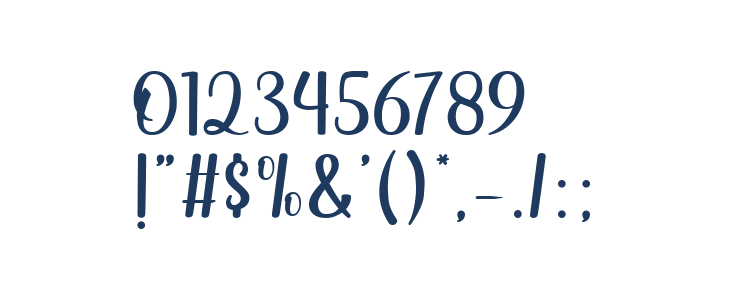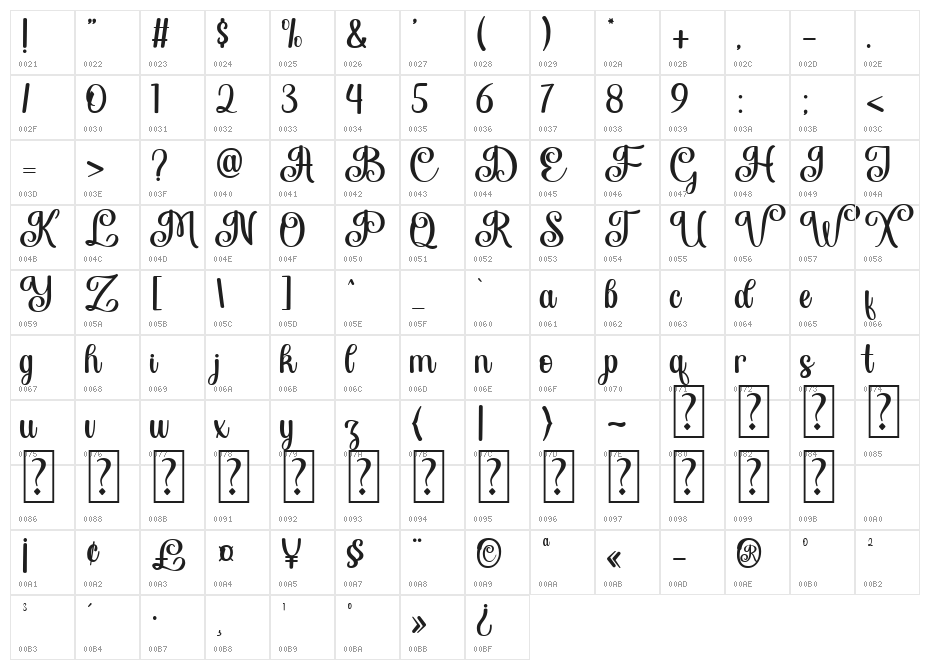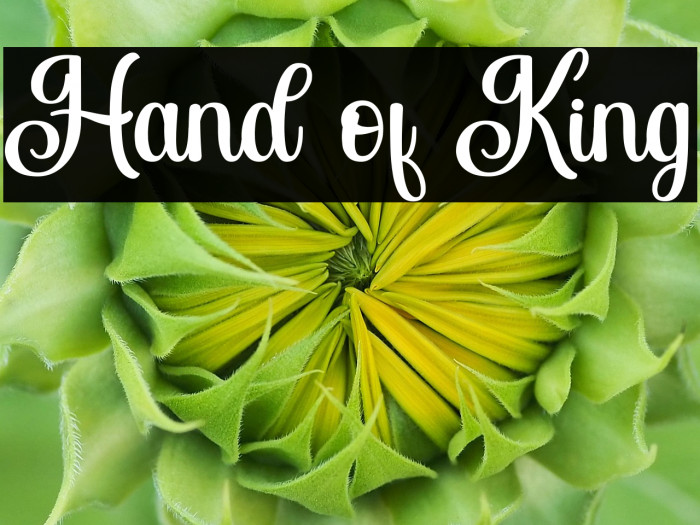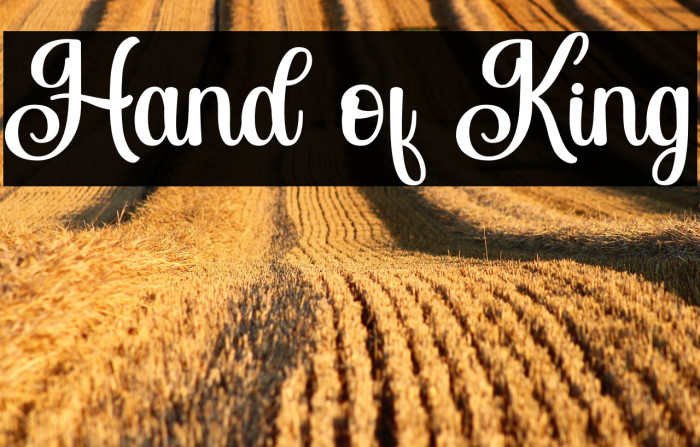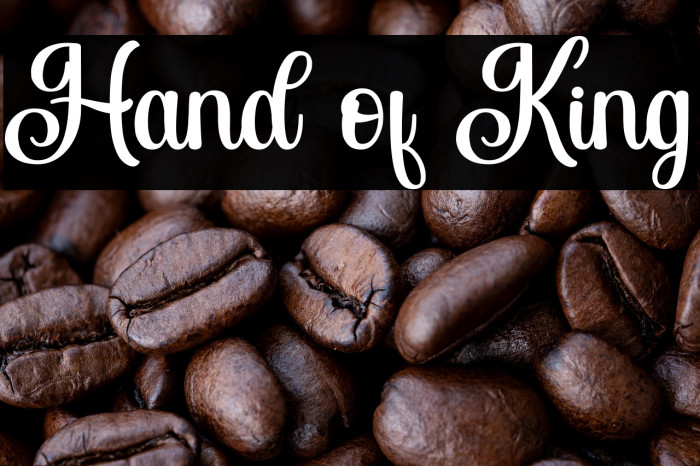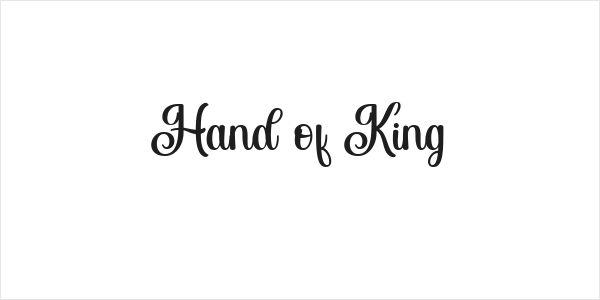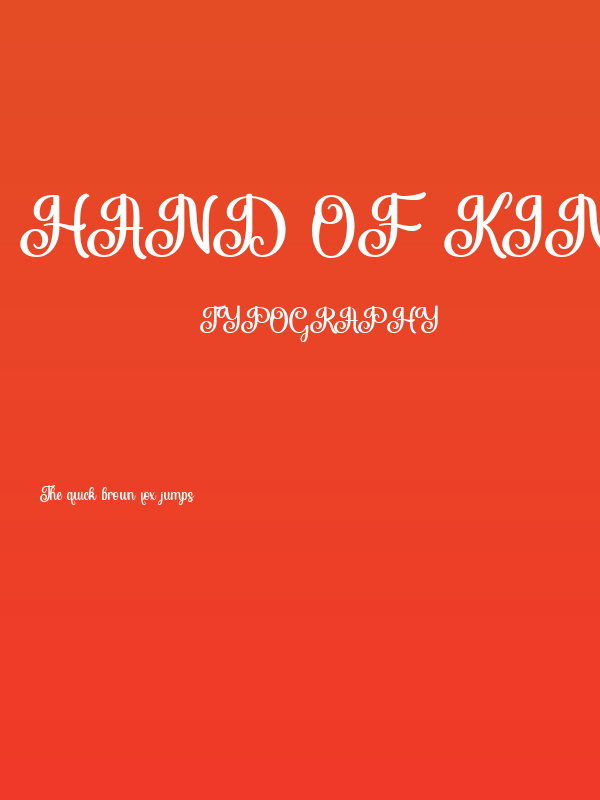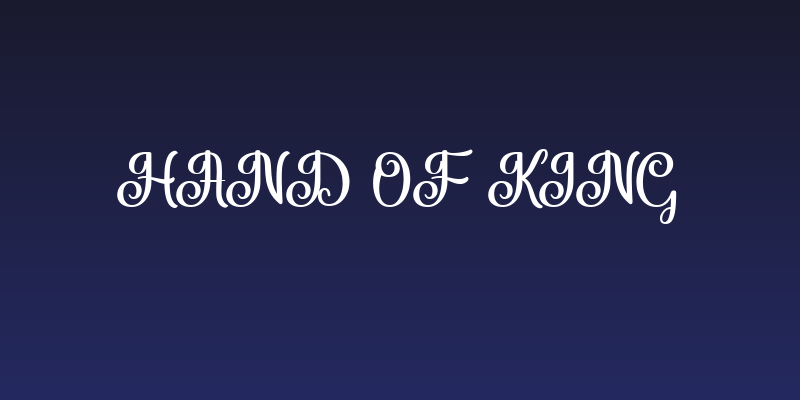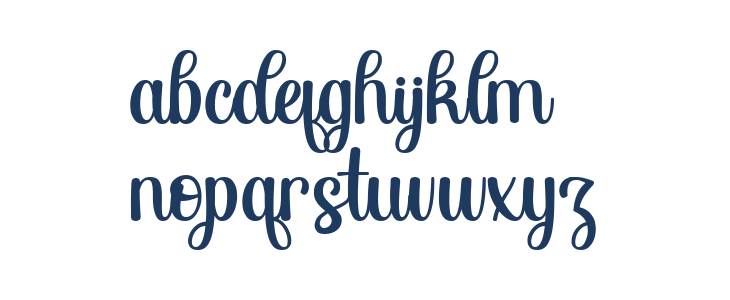
Hand of King Font
Hand of King Description
This font features a playful and whimsical script style with a unique blend of elegance and boldness. The uppercase letters are characterized by their intricate loops and swirls, giving them a decorative flair. The lowercase letters maintain a smooth, flowing appearance, enhancing readability while retaining a sense of charm. Numbers and special characters are crafted with the same attention to detail, ensuring consistency across all elements. The font's overall design is both eye-catching and versatile, making it suitable for a variety of creative applications.
| Proposed Projects | Ideal for wedding invitations, greeting cards, branding projects, and social media graphics. |